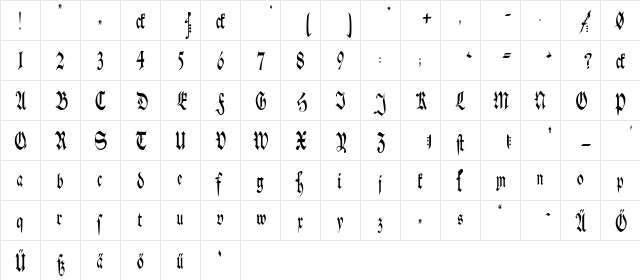
Schwaben Alt Thin Thin
Design Context for Schwaben Alt Thin Typeface
Schwaben Alt Thin is a composed and adaptable typeface that performs quietly and consistently across a wide range of design contexts. The delicate stroke weight brings airiness and refinement to layouts.